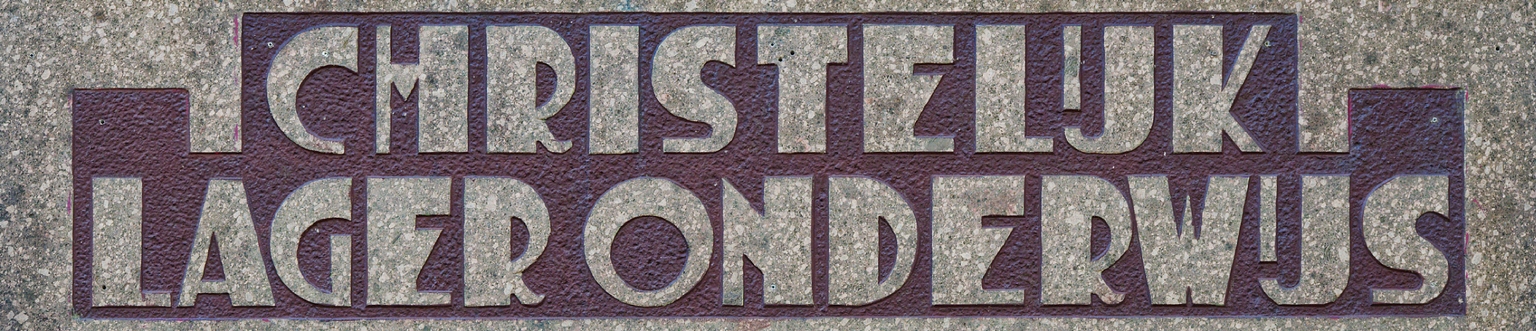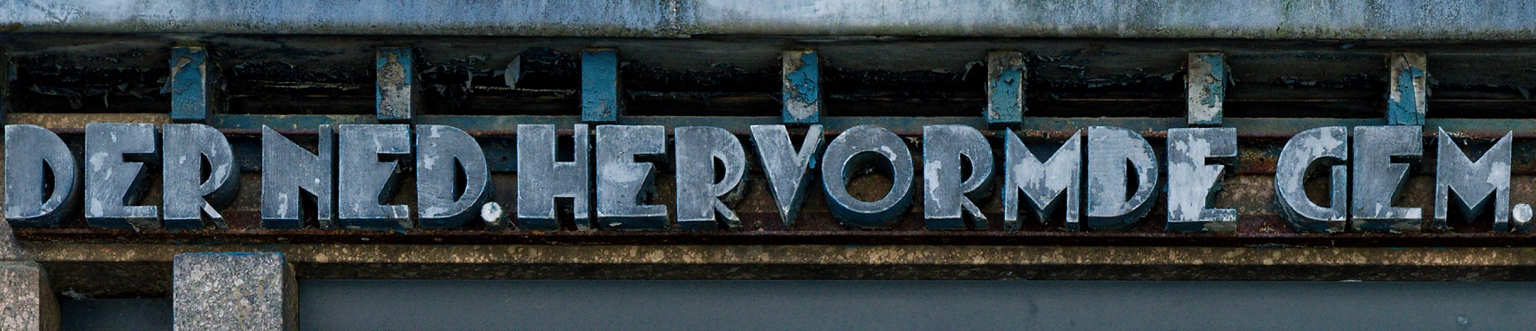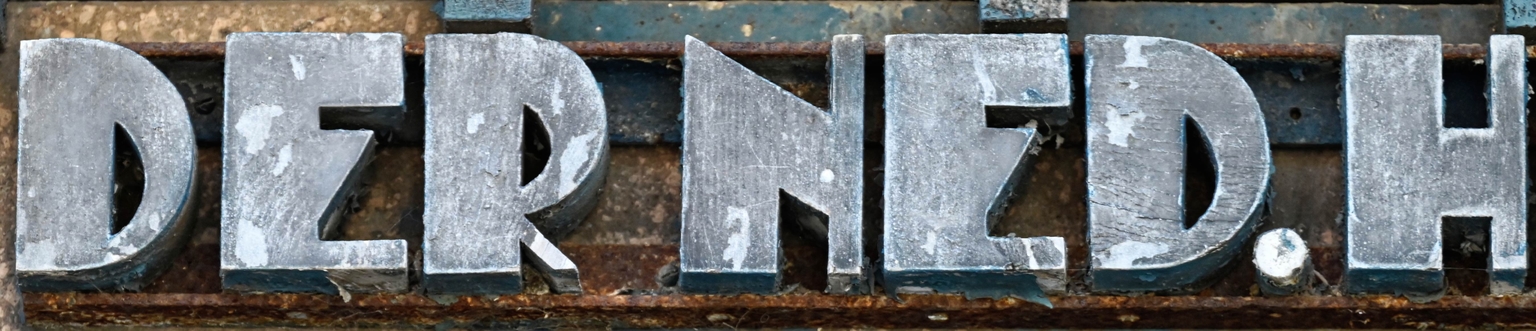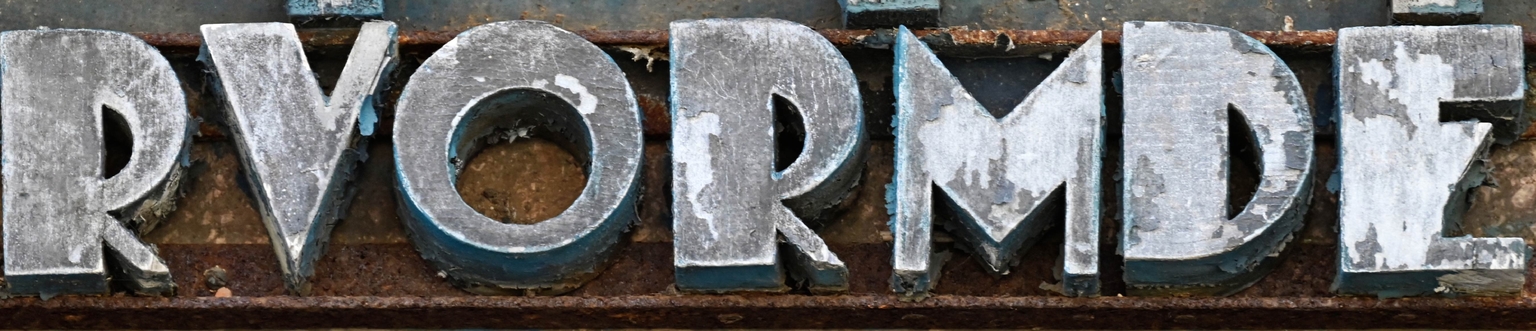
Kristiana
The Kristiana typeface is inspired by the lettering that identifies the Pro Regeschool entrance, located at Floris Versterstraat 11, 1058 JL, Amsterdam. This building, constructed in 1931 in a style reminiscent of the Amsterdam School, was designed by architect G.A. Roobol.
In early 2025, Ramiro Espinoza took numerous photographs of the lettering to later digitize and refine it—eliminating inconsistencies and expanding the character set to create a display font with a strong expressive personality and Art Deco influences.
Kristiana performs exceptionally well at large sizes and in design pieces that demand attention, such as posters, billboards, film titles, and announcements. Designers working on identities, logos, or labels with a bold personality and retro feel will find Kristiana a capable and compelling choice.